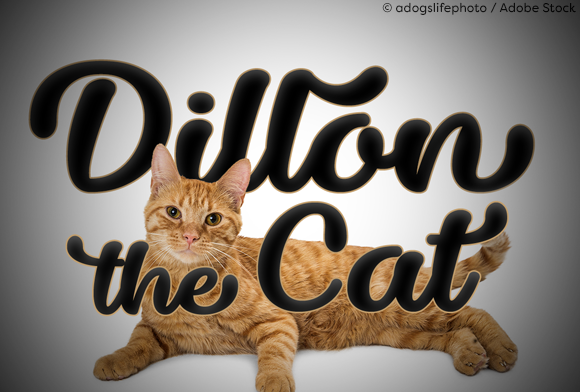
Introducing Dillon the Cat Font, the purr-fect addition to your creative toolbox! This enchanting script typeface, lovingly crafted by Misti, will add a touch of playful sophistication to any design project.
Unleash your inner feline with Dillon the Cat Font, designed to capture the whimsical charm and elegance of a curious kitty. Its graceful curves and swashes will add a touch of feline finesse to logos, product labels, and invitations.
But wait, there's more! Dillon the Cat Font comes with a bundle of delightful surprises. Underlines, swashes, and alternates provide endless opportunities to customize your creations and make your designs stand out from the crowd.
Imagine the delight of your audience as they receive an invitation adorned with Dillon the Cat Font. Its playful yet sophisticated style will create a lasting impression that will have them meowing for more!